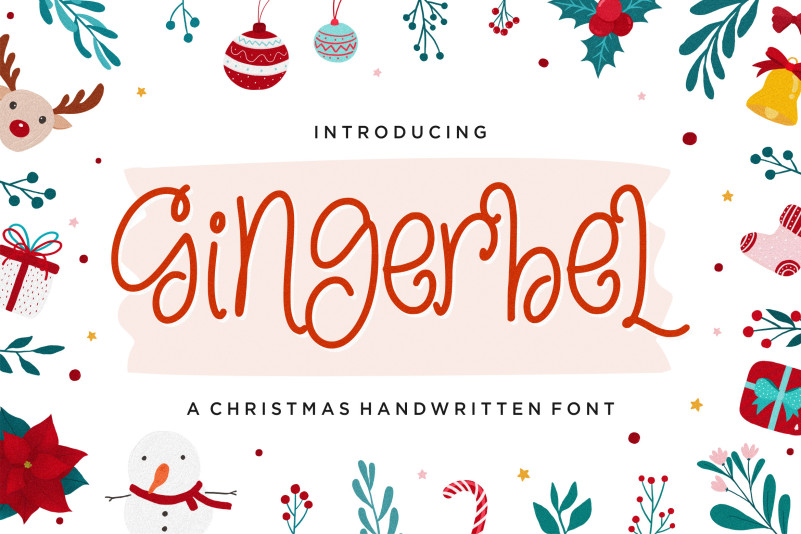
Gingerbel Handwritten Font is a Christmas Handwritten Font. Gingerbel is perfect for product packaging, branding project, megazine, social media, wedding, or just used to express words above the background.